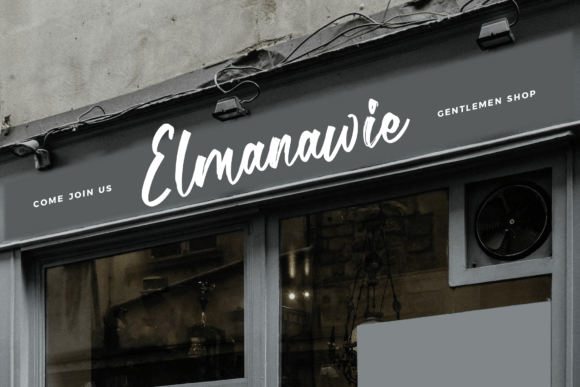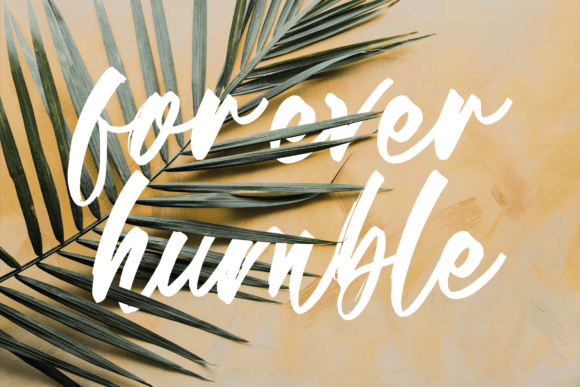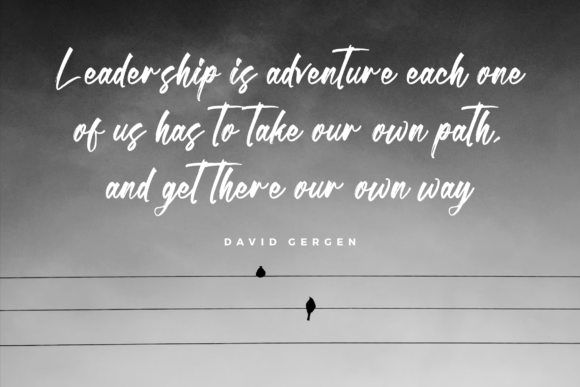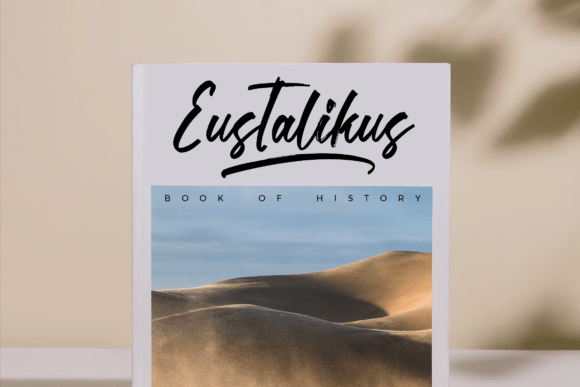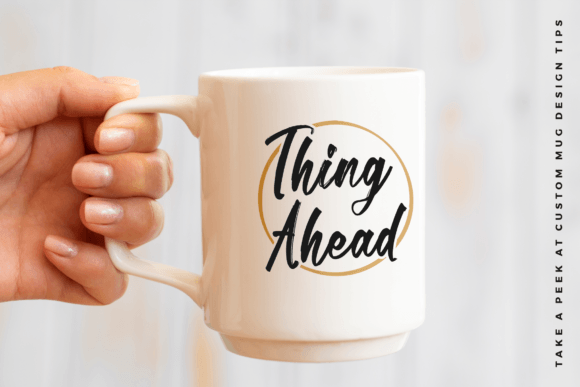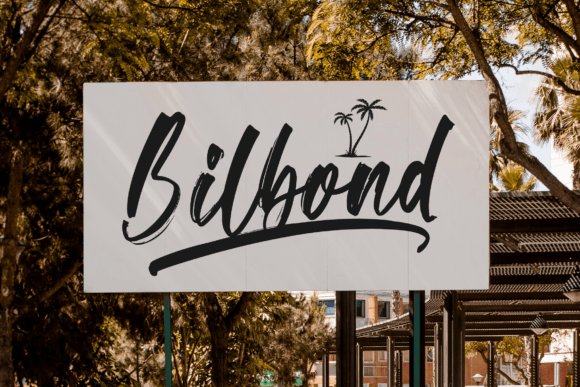
Introduction to Rinebold Gutisky Font Font
Fonts play a crucial role in design, and the Rinebold Gutisky Font font is a typeface that brings both character and versatility to any project. Whether you’re working on a branding project, a website, or a print design, the Rinebold Gutisky Font font offers a unique style that can elevate your work.
Rinebold Gutisky is a delicate and elegant handwritten font.
Its distinct and well balanced letters make this font a masterpiece Fall in love with its incredibly versatile style and use it to create spectacular designs.
Key Features of Rinebold Gutisky Font Font
Why Choose Rinebold Gutisky Font Font?
The Rinebold Gutisky Font font is more than just a typeface – it’s a design tool that helps you communicate your message with style and clarity. Its unique character set and versatile design make it suitable for a wide range of applications, from elegant invitations to bold headlines.
With its carefully crafted letterforms and balanced proportions, the Rinebold Gutisky Font font ensures readability and visual appeal across all mediums.
What makes Rinebold Gutisky Font font special?
The Rinebold Gutisky Font font stands out with its unique design, exceptional readability, and versatility across various design applications.